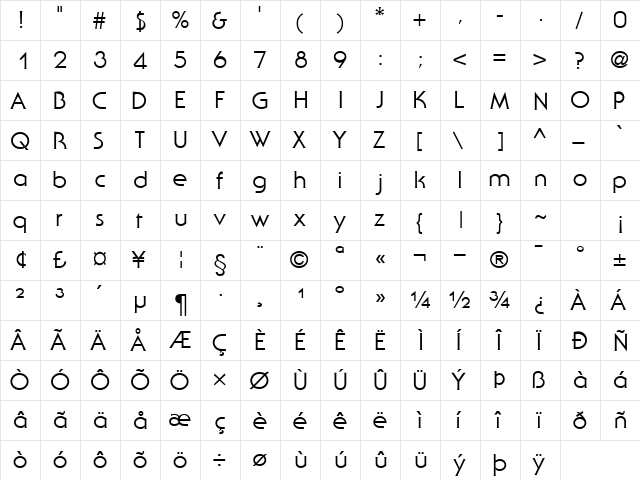
UbiqGothicSSK Regular
Design Context for UbiqGothicSSK Typeface
UbiqGothicSSK has the quiet confidence of well-executed sans-serif typography: versatile, unobtrusive, and dependable at any size.
Font Pairing: Works well alongside a characterful serif or display font that can carry the expressive load while UbiqGothicSSK handles the functional copy.
Pro Tip: Use UbiqGothicSSK for UI labels, navigation, and short-form body copy where clean legibility is the priority.